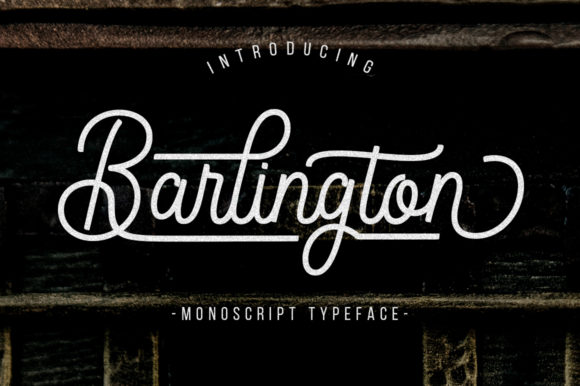
Step into a world of elegance and sophistication with Barlington Font, a captivating script that brings a touch of luxury to your digital creations. Experience the allure of calligraphy reimagined, as Barlington's graceful curves and intricate details weave a web of enchantment around your words.
Dive into the Barlington universe, where each letter dances across the screen with poise and grace, leaving a trail of beauty in its wake. Let your imagination soar as you explore the boundless possibilities of this enchanting script.
The brainchild of the renowned Megatype, Barlington is a symphony of creativity and innovation. Its remarkable design captures the essence of classic calligraphy while injecting a breath of fresh air into the digital realm.
Whether you're a seasoned designer or a novice just starting out, Barlington is your perfect companion. Its user-friendly interface and intuitive controls make it a joy to use, allowing you to effortlessly craft designs that exude elegance and refinement.
Unleash your inner artist and let Barlington guide you on a journey of self-expression. Transform your projects into works of art, where every word becomes a masterpiece. With Barlington, the possibilities are limitless.